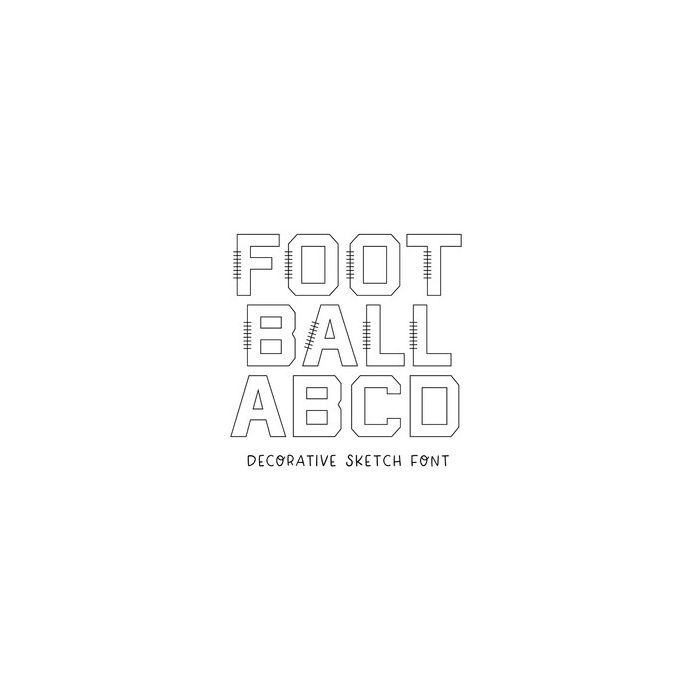
BFC Football Sketch Sporty Block Sketch Pen Font
Football Sketch is a decorative sketch font with football lines. Uppercase characters are plain block letters.